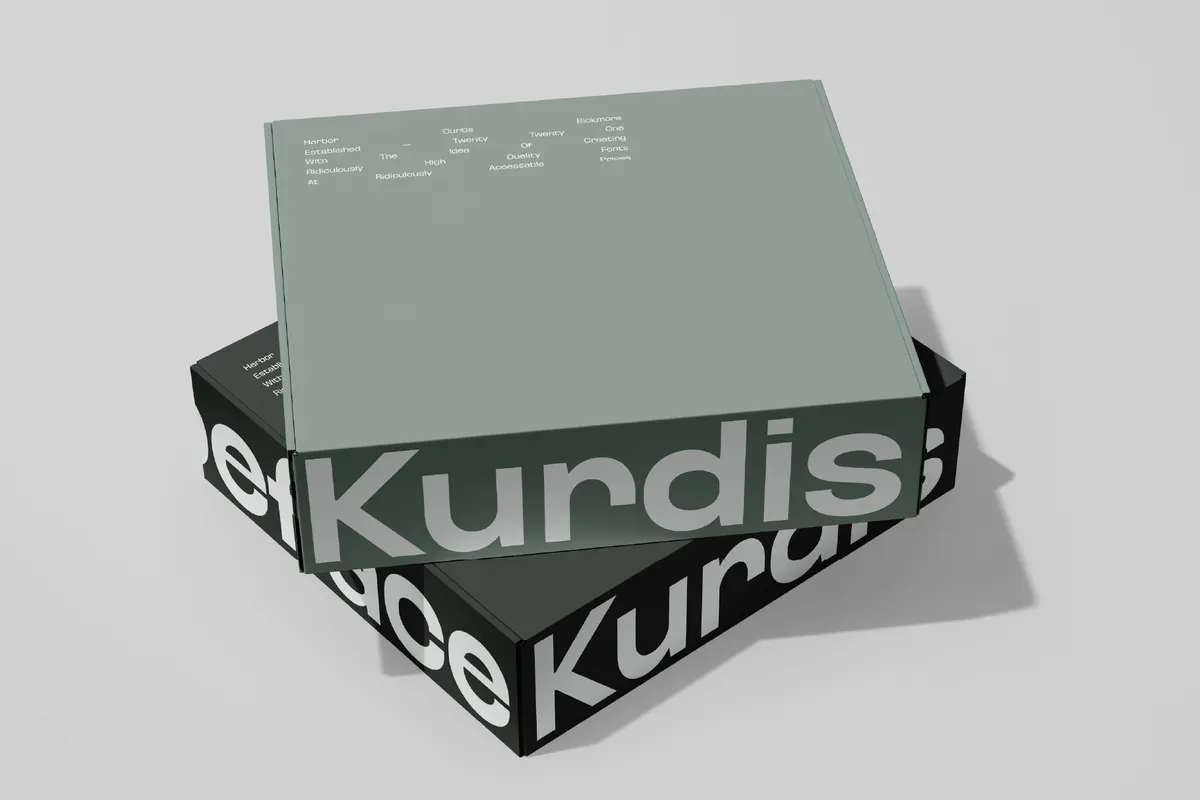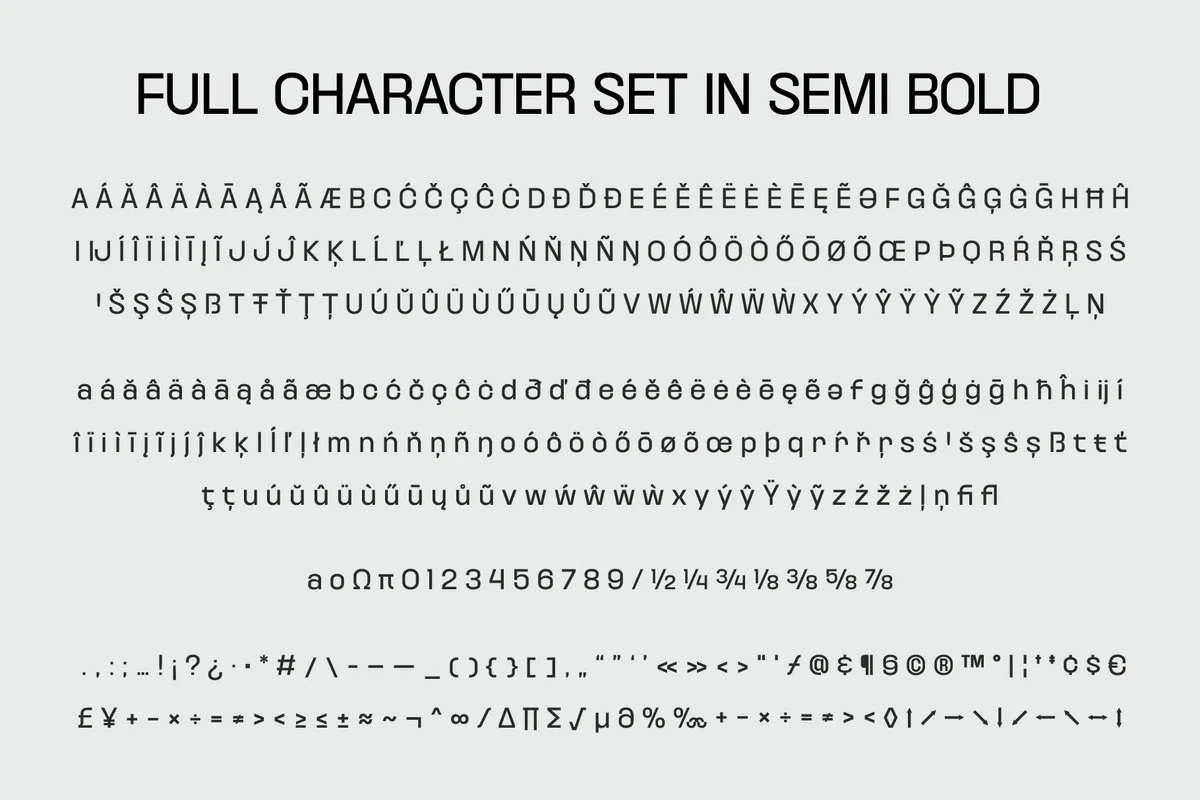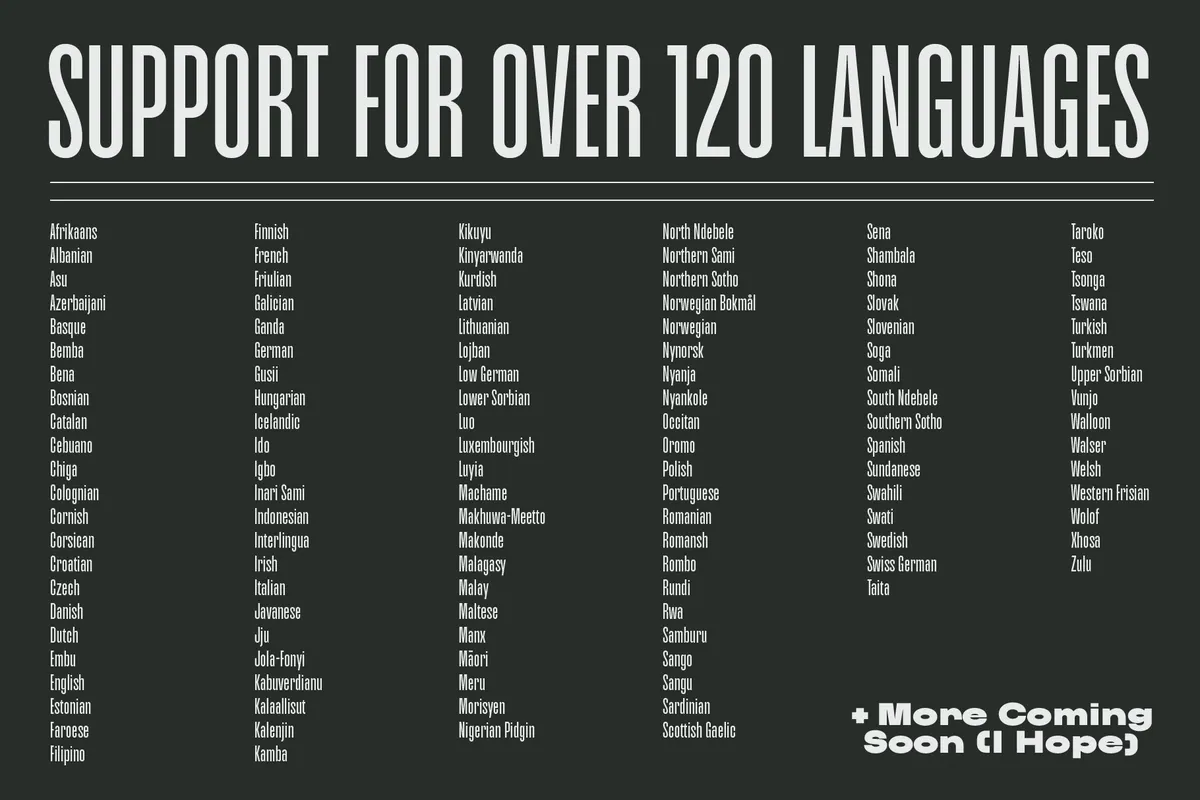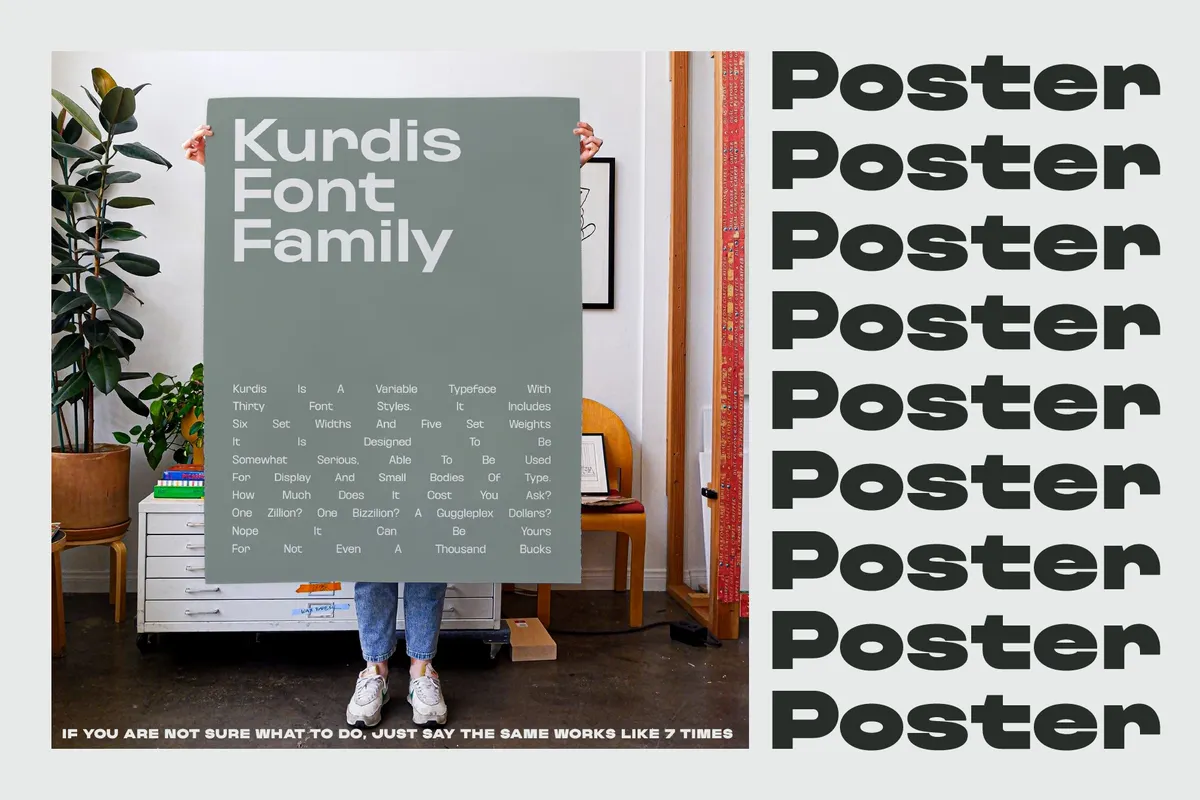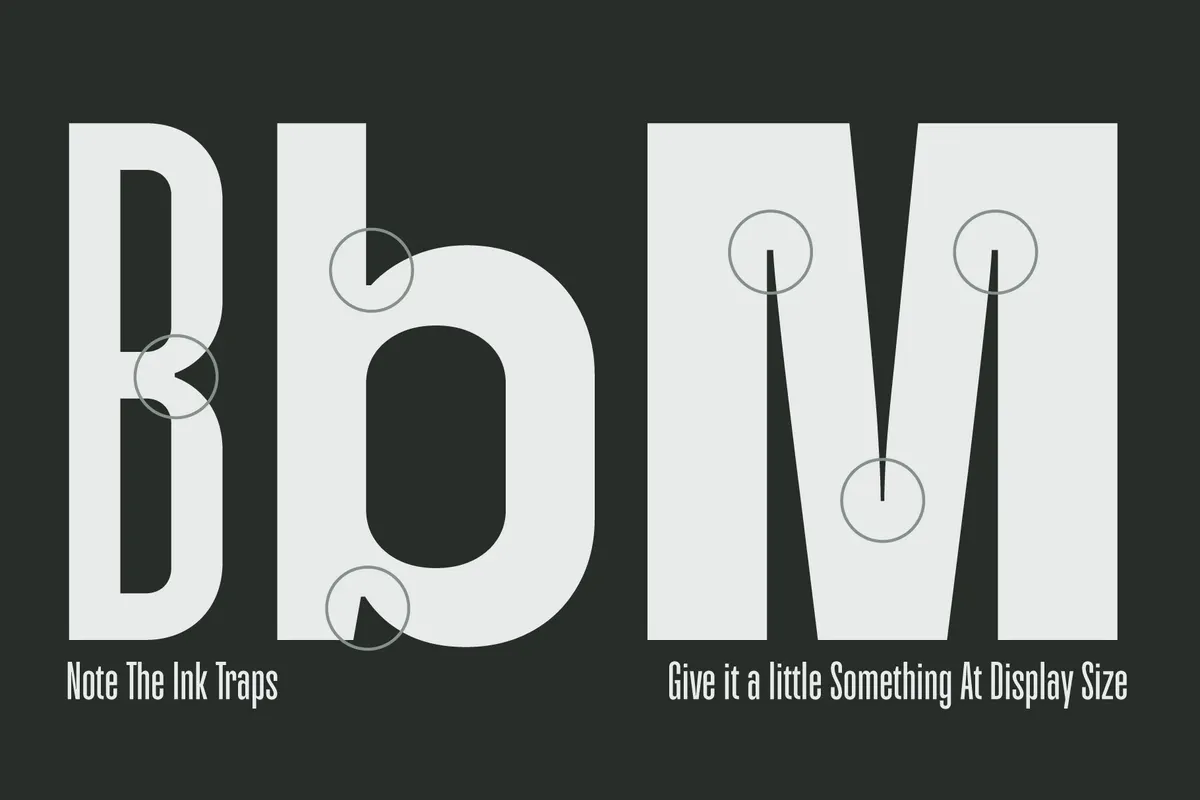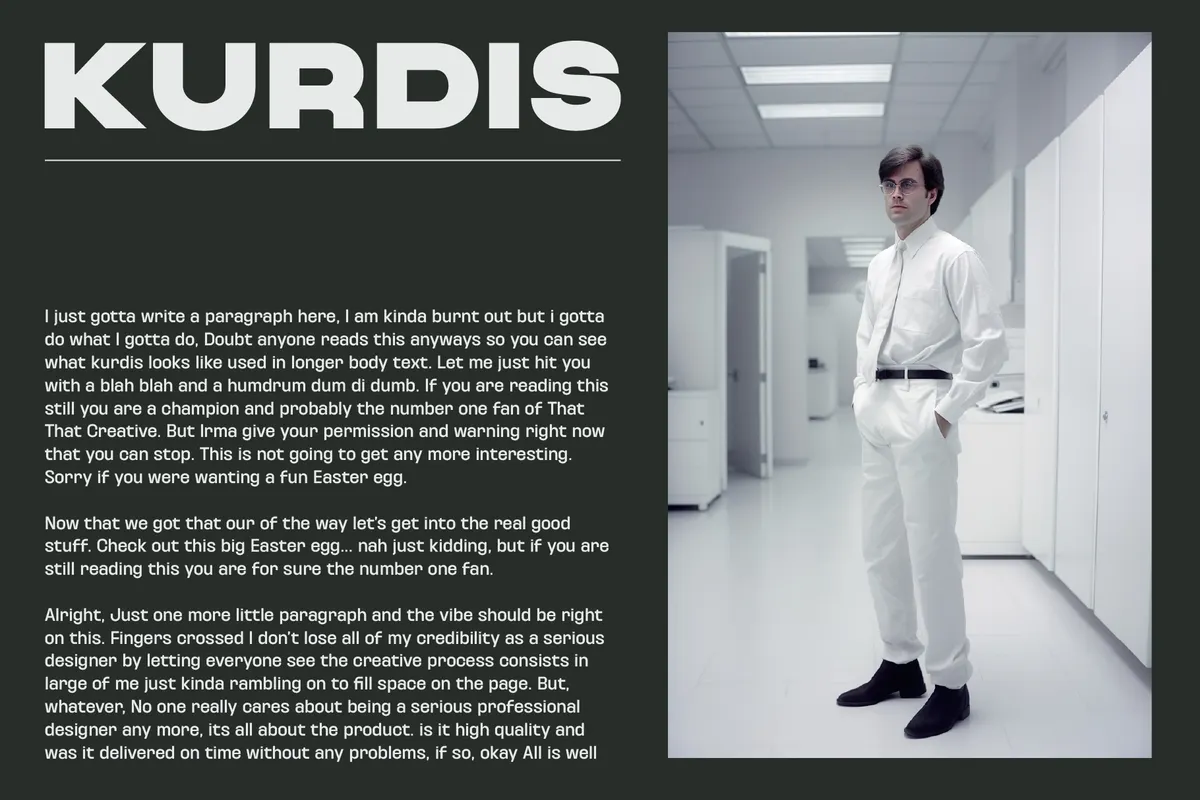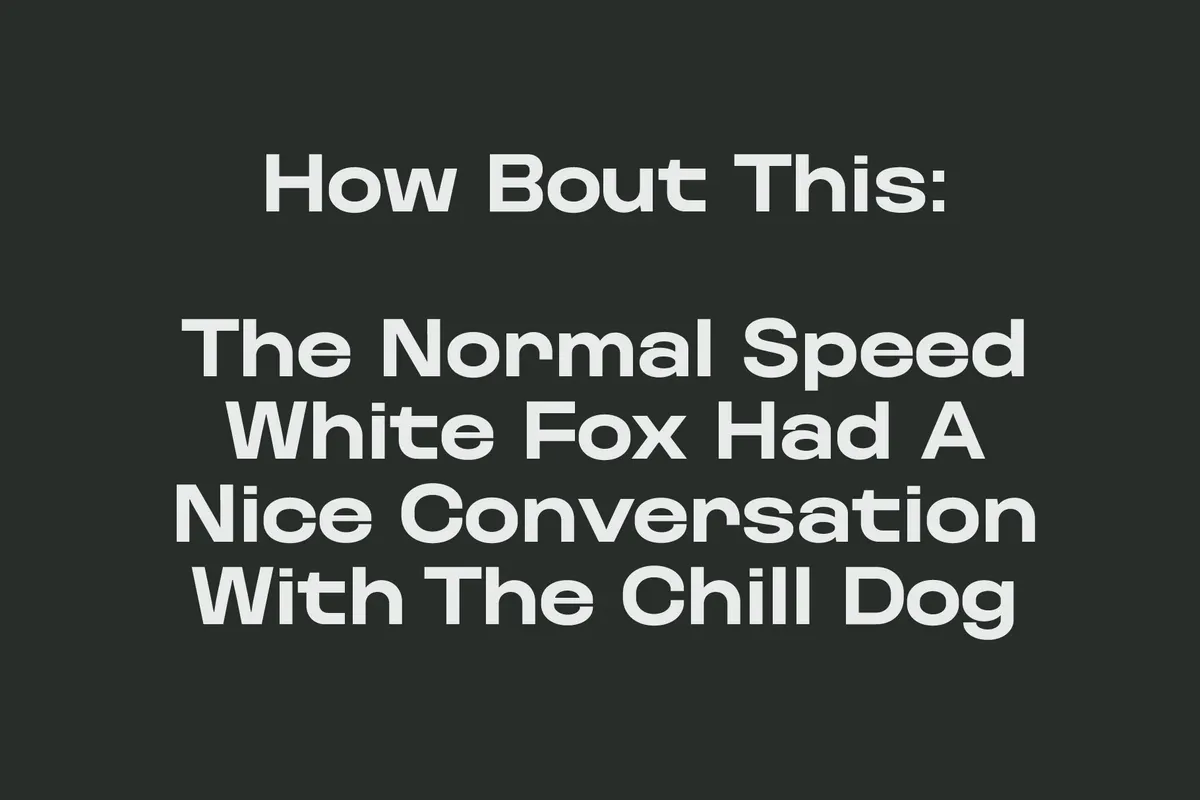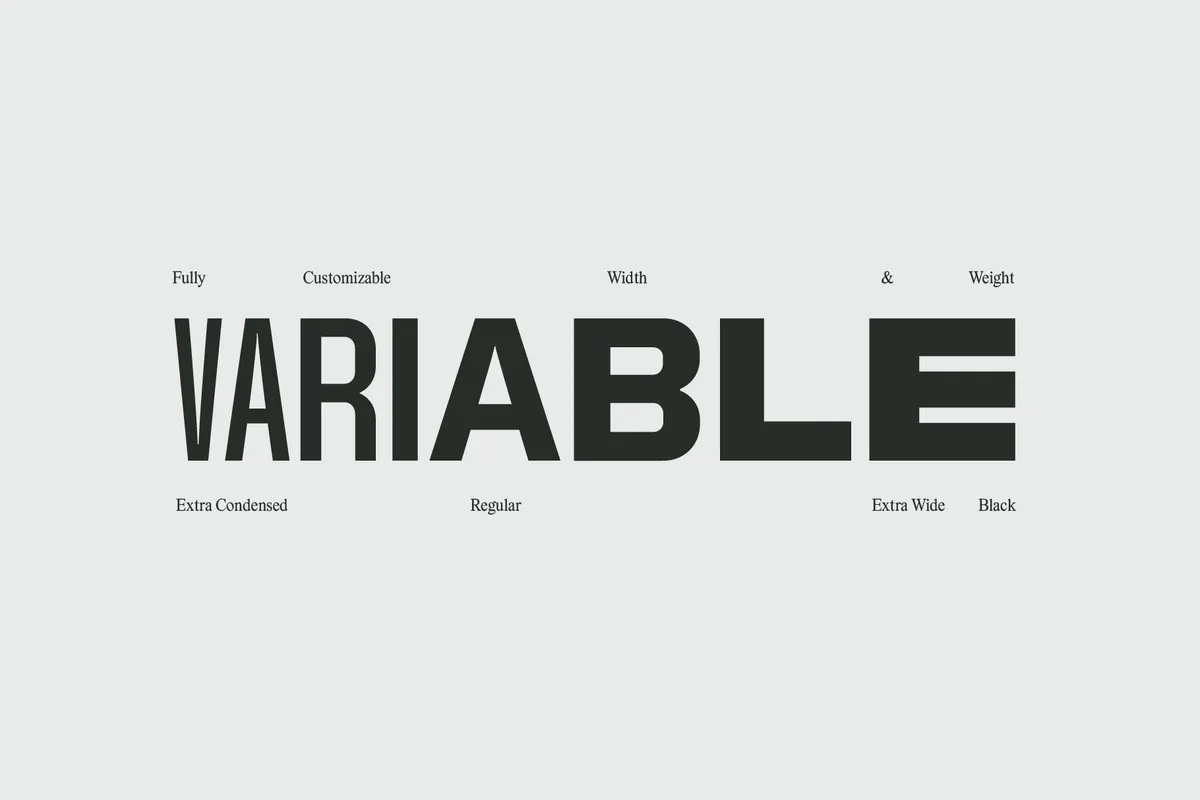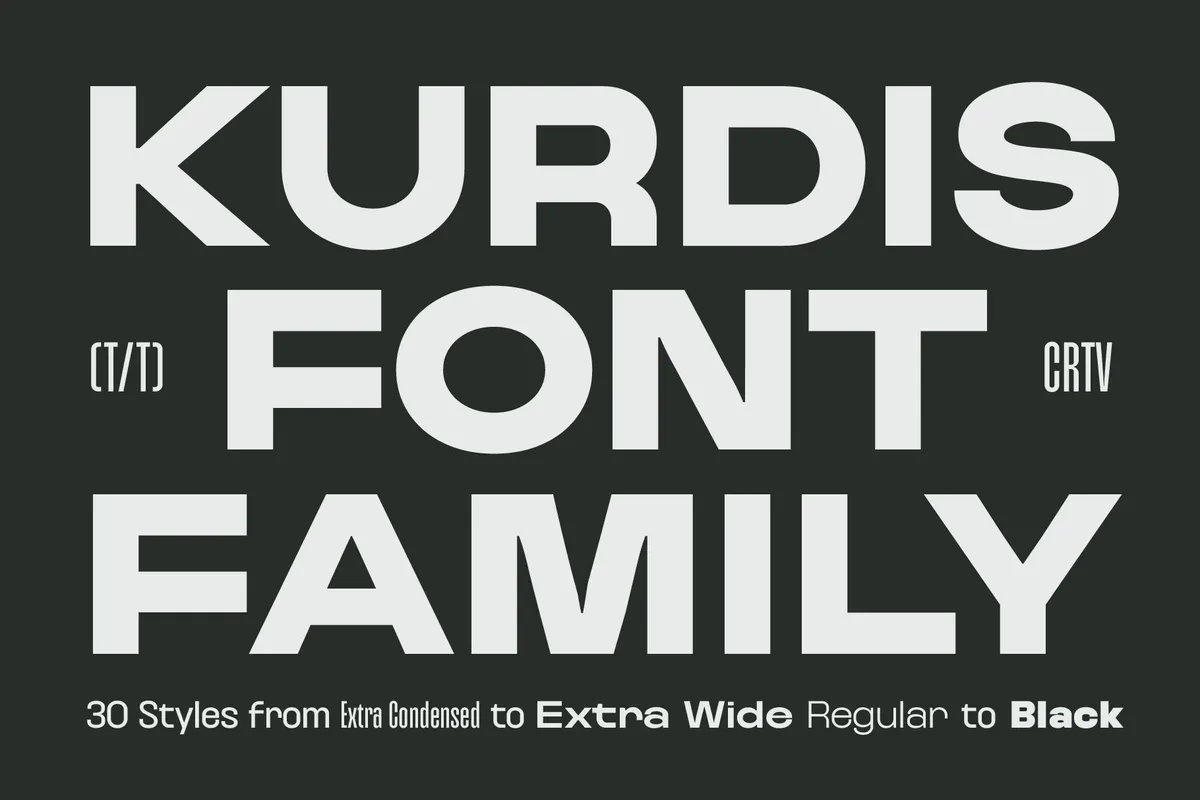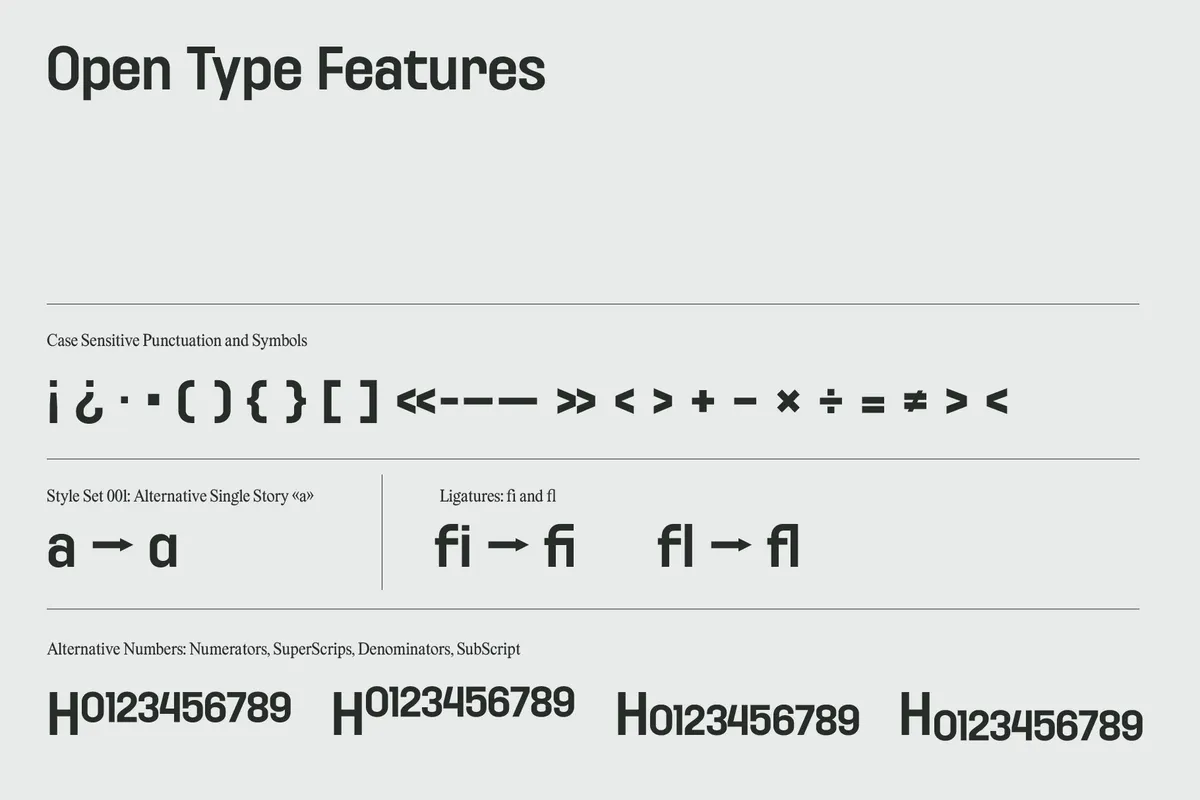
Kurdis - Bold Display Sans Family
Kurdis is a sans serif font family built across six widths and five weights, from Extra Condensed to Extra Wide, Regular to Black — 30 static styles plus a variable version that dials in exact width and weight on the fly. Ink traps carved into the condensed cuts keep the letterforms crisp at small sizes and give the display weights a confident edge at large scale. The wider cuts open up and read comfortably in long-form text, so the family covers headline work and body copy from a single design.
Use it for editorial headlines, poster titles, branding systems, website type, packaging, app interfaces, wayfinding signage, and long-form body text.
• 30 styles across 6 widths and 5 weights (Regular to Black);
• variable font included, dialing in exact width and weight;
• uppercase & lowercase;
• numerals, punctuation & symbols, plus fractions and ordinals;
• ligatures, contextual alternates;
• superscript, subscript, numerator, and denominator figures;
• multilingual support across 120+ languages;
• 525 glyphs per style.